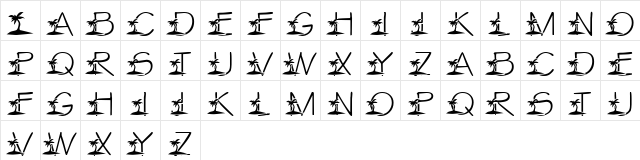
Complete LMS Tropical Island Dream Regular glyph index. Displaying only characters natively supported by LMS Tropical Island Dream Regular font.
LMS Tropical Island Dream is a composed and adaptable typeface that performs quietly and consistently across a wide range of design contexts.